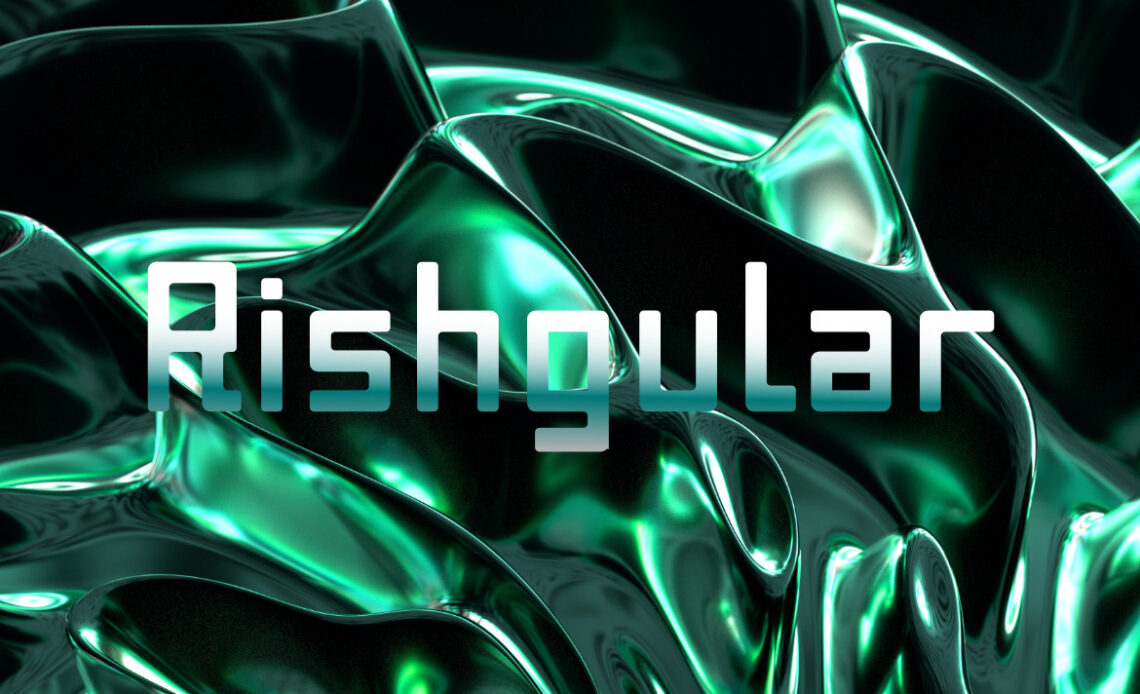
Prepare yourself to be mesmerized by Rishgular, a display font that embodies the essence of contemporary design. This captivating creation by ffeeaarr is a visual masterpiece that will transform your creative visions into stunning realities.
With its clean lines, sharp angles, and distinctive letterforms, Rishgular exudes an aura of sophistication and modernity. Its meticulously crafted glyphs dance across the screen, beckoning you to explore the limitless possibilities it holds.
Immerse yourself in the world of modern applications and let Rishgular be your guiding light. This font is tailor-made to elevate your digital creations, bringing a touch of elegance and innovation to every project you undertake.
Whether you're a seasoned designer or just starting your creative journey, Rishgular is the perfect companion. Its user-friendly nature and versatility make it accessible to all skill levels. Unleash your imagination and watch as Rishgular transforms your ideas into breathtaking designs.
Join the ranks of creative visionaries who have discovered the magic of Rishgular. Embrace the power of modern design and let this font ignite your passion for creating.
Don't settle for ordinary fonts. Choose Rishgular and unlock a world of creative possibilities. Its contemporary style and versatility will leave an indelible mark on your designs, captivating audiences and leaving them in awe.